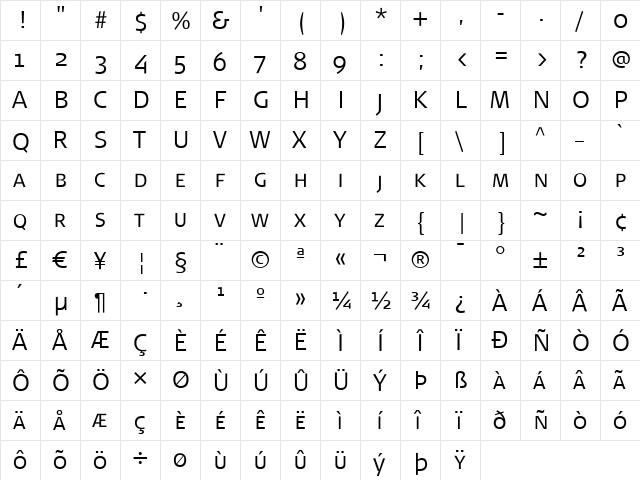
Signa Regular Font Preview
Signa Regular
Design Context for Signa Typeface
Signa takes a measured approach to typography — its balanced proportions and neutral character make it a reliable workhorse for both digital and print work.
Pro Tip: Use Signa in both headline and body roles to test its range before committing to a single application.